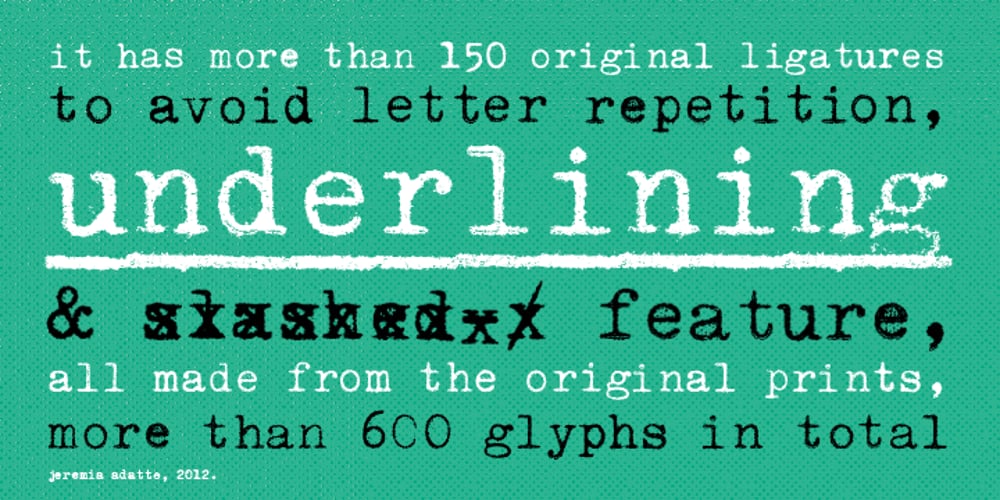
Swissa Piccola Font Family was designed by Jeremia Adatte and published by Jeremia Adatte. Swissa Piccola contains 3 styles and family package options. The Swiss typewriters were famous for their unique precision. As complex digitalizations and macro shots were a start for the inspiration and studies, each character has been carefully re-crafted from the ultra high def scans of the printouts made on a special bleed-proof paper. Today’s characters such as @, euro sign and most of accents have been crafted according the original alphabet design. The idea was to digitize and keep a saving of the original typewriter including all its functions (e.g. underlining key) . It’s surprisingly very legible at small sizes. Thanks to an x-height tighter and more spaced, a glyph design less detailed and more neutral/simple than other fonts found on american or italian typewriters. The final artwork can be set at very large sizes due to the highly detailed glyph design. Swissa Piccola Regular is loaded with more than 150 glyphs created with the typewriter to avoid letter repetition in a word. This OpenType feature can be accessed through the ‘discretionary ligatures’ option. Plus it comes with two stylistic sets : one with an original underlining feature, another with a slashed-x feature. In which all characters are unique and also have been originally typed with the typewriter. It contains more 600 glyphs in total. The two features are separated in another two fonts (Swissa Piccola Slashed x and Underlined) in case a non OT-savvy app is used. If you wish to obtain exactly the same prints as the original Swissa Piccola typewriter, you should set your font at 11.3 pt and 19.5 pt of line spacing. The Swissa Piccola font was originally offered in a dedicated limited edition packaging.